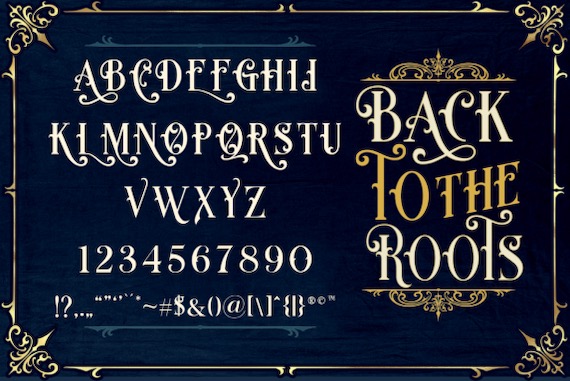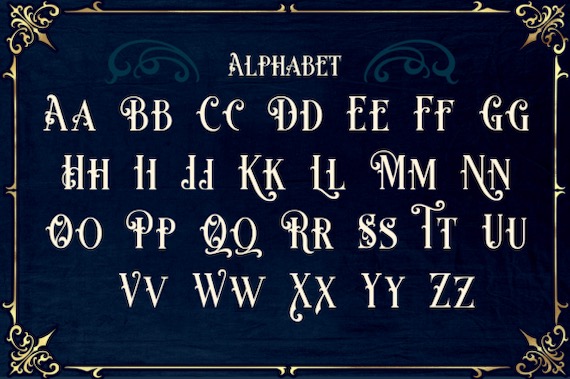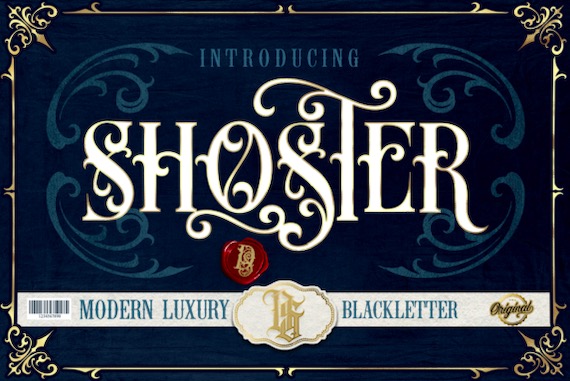
Shoster Font is a classic distinct and victorian styled blackletter font that was created and shared by Dansdesign with a unique ravishing style.
Shoster Blackletter Font
Designer Name: Dansdesign